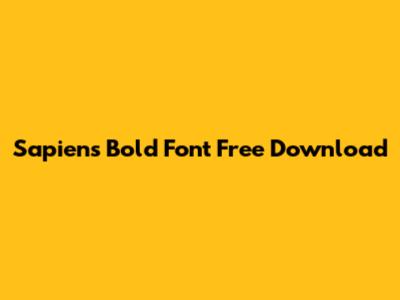
Sapiens Bold Font: Free Download Guide
What is Sapiens Bold Font?
Sapiens Bold is a typeface that stands out with its strong, modern, and clean design. It's characterized by its bold weight, which makes it perfect for headlines, titles, and any design element that needs to grab attention. The font exudes a sense of confidence and clarity, making it a favorite among designers for various applications. Its well-defined letterforms ensure legibility while maintaining an aesthetic appeal that enhances the overall look and feel of any project. Whether you're working on branding, advertising, or editorial design, Sapiens Bold can bring a touch of sophistication and impact.
The versatility of Sapiens Bold extends to both print and digital media. In print, its strong strokes and clear shapes ensure that text remains crisp and readable, even in smaller sizes. This makes it an excellent choice for brochures, posters, and magazine layouts. In the digital realm, Sapiens Bold shines on websites, mobile apps, and social media graphics. Its robust design translates well to screens, providing a consistent and engaging user experience. Designers often use Sapiens Bold to create a visual hierarchy, emphasizing key information and guiding the viewer's eye through the content. Its ability to command attention without sacrificing readability makes it an invaluable asset in any designer's toolkit.
Moreover, the Sapiens Bold font is often used in projects that require a contemporary and professional look. Its clean lines and bold presence communicate authority and trustworthiness, making it a popular choice for corporate branding and marketing materials. For instance, a tech company might use Sapiens Bold in its logo and website to convey innovation and reliability. Similarly, a financial institution could leverage the font in its reports and presentations to project stability and expertise. The font’s modern aesthetic also aligns well with creative industries, where it can be used to create eye-catching designs for fashion brands, art galleries, and entertainment venues. Ultimately, Sapiens Bold’s adaptability and visual impact make it a go-to choice for designers looking to make a statement.
Why Use Sapiens Bold?
So, why should you consider using Sapiens Bold for your projects? Well, there are several compelling reasons. First off, its bold nature ensures that your text will stand out. Whether you're designing a website, creating a poster, or putting together a presentation, Sapiens Bold grabs the viewer's attention immediately. This is especially useful in crowded or visually noisy environments where you need your message to cut through the clutter. Its strong presence helps to create a clear visual hierarchy, guiding the audience's eye to the most important elements of your design.
Secondly, Sapiens Bold exudes a sense of professionalism and modernity. Its clean lines and contemporary design make it suitable for a wide range of applications, from corporate branding to creative projects. The font conveys a sense of confidence and sophistication, which can be particularly beneficial if you're trying to establish credibility or appeal to a discerning audience. Whether you're designing a logo, crafting marketing materials, or developing a user interface, Sapiens Bold can elevate the overall aesthetic and enhance the user experience. Its versatility ensures that it remains a relevant and impactful choice across various design disciplines.
Finally, Sapiens Bold is incredibly versatile. It works well in a variety of contexts and can be paired with other fonts to create interesting and dynamic designs. You can use it for headlines, body text, captions, and more. Its adaptability allows you to maintain a consistent visual identity across different platforms and media. For example, you might use Sapiens Bold for the headings on your website and then pair it with a lighter sans-serif font for the body text. This combination creates a balanced and readable design that is both visually appealing and functional. The font’s ability to integrate seamlessly into different design workflows makes it a valuable asset for any designer.
Another thing to consider is the license. Even if you find a free download, it might not be free for commercial use. Some fonts are only free for personal projects, and if you use them for business purposes without the proper license, you could face legal issues. Always read the fine print and understand the terms of use before incorporating a free font into your work. This ensures that you're not violating any copyright laws and that you're using the font in a way that is both ethical and legal.
Additionally, be wary of fonts that claim to be Sapiens Bold but are actually knock-offs. These imitations may not have the same quality or design integrity as the original font. They might have inconsistent letterforms, poor spacing, or other issues that can detract from the overall look of your design. To avoid this, try to download fonts from reputable sources, such as well-known font foundries or established design platforms. These sources are more likely to offer genuine fonts that have been professionally designed and tested.
Where to (Legally) Find Sapiens Bold
So, where can you legally find Sapiens Bold? Your best bet is to check out reputable font foundries and online marketplaces. Sites like MyFonts, Adobe Fonts, and Fontspring are great places to start. These platforms offer a wide selection of high-quality fonts, and you can be sure that you're getting a legitimate product. Plus, they often have licensing options that cover both personal and commercial use, so you can use the font with peace of mind.